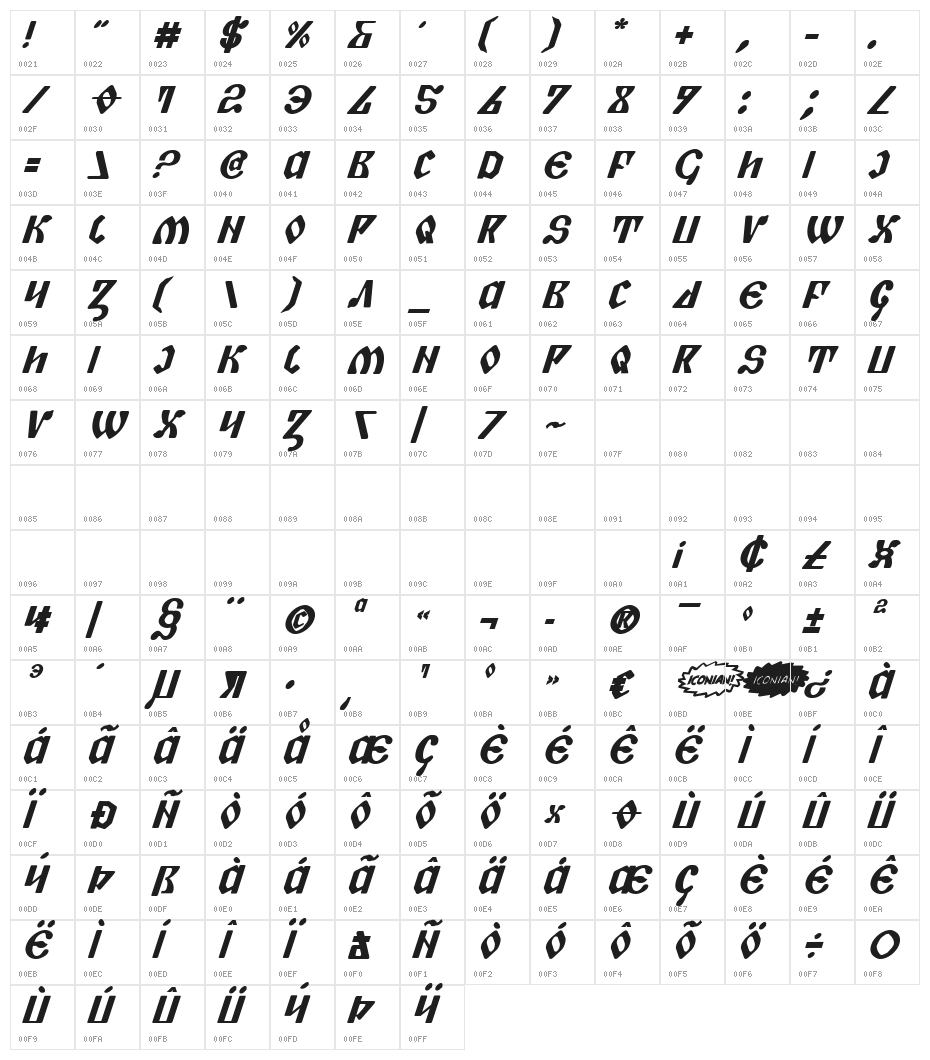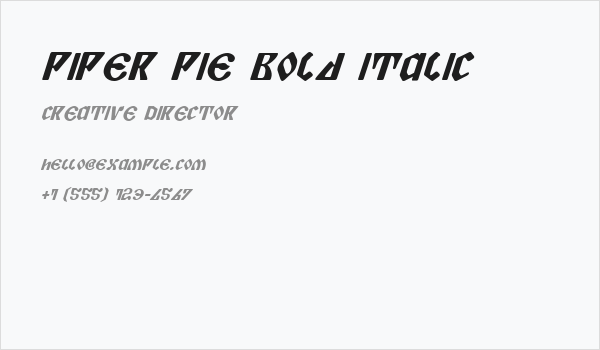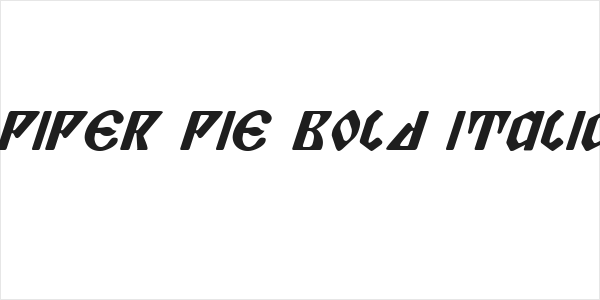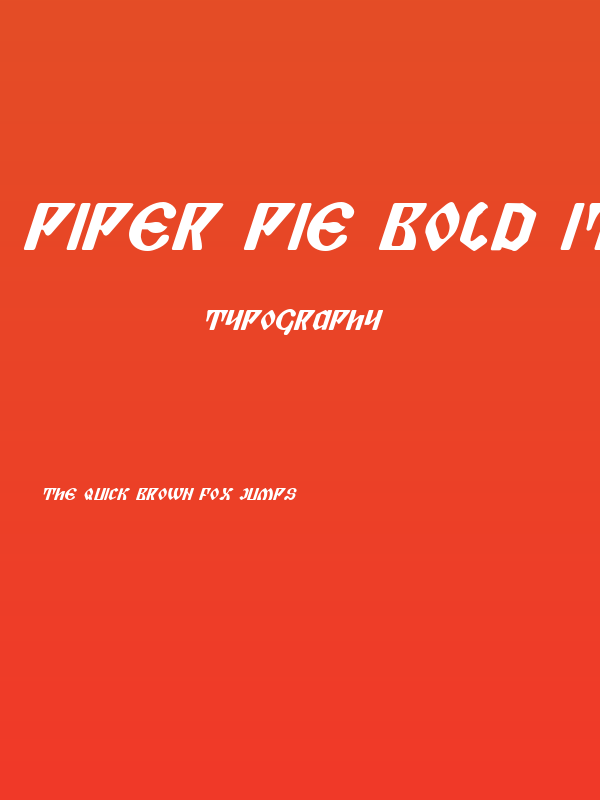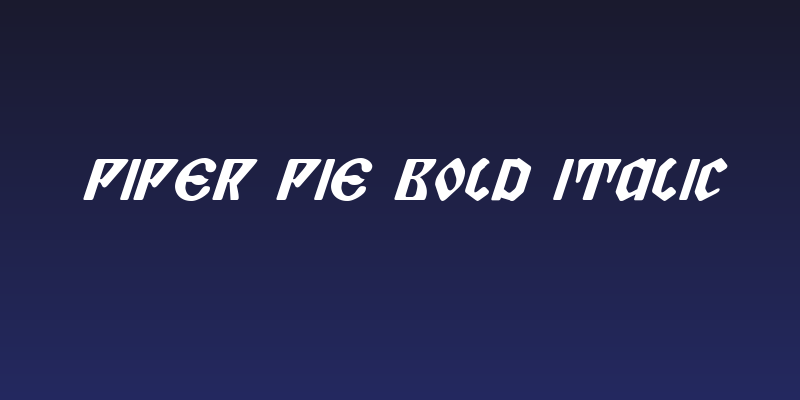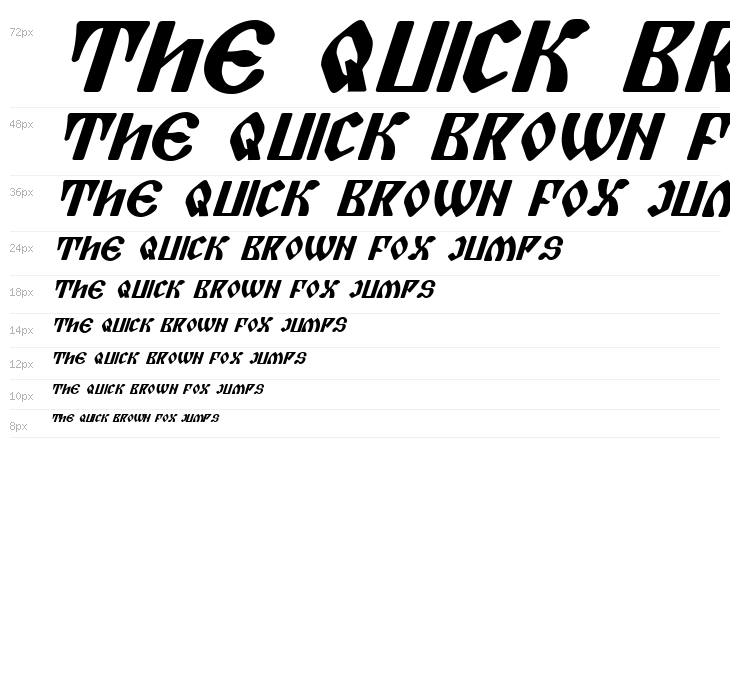
Piper Pie Bold Italic Font
Piper Pie Bold Italic Description
This font features a bold and italicized style with a distinct, decorative flair. The characters exhibit a dynamic slant, enhancing their italic nature, while maintaining a bold weight that ensures strong visibility. The strokes are thick and consistent, providing a robust appearance. Each letter is uniquely crafted with angular cuts and curves, giving the font a modern yet slightly vintage feel. The numbers and special characters follow the same stylistic cues, ensuring uniformity across all glyphs. The overall design is eye-catching, making it suitable for projects that require a strong visual impact.
Proposed ProjectsIdeal for branding, poster design, and headlines that require a bold statement.